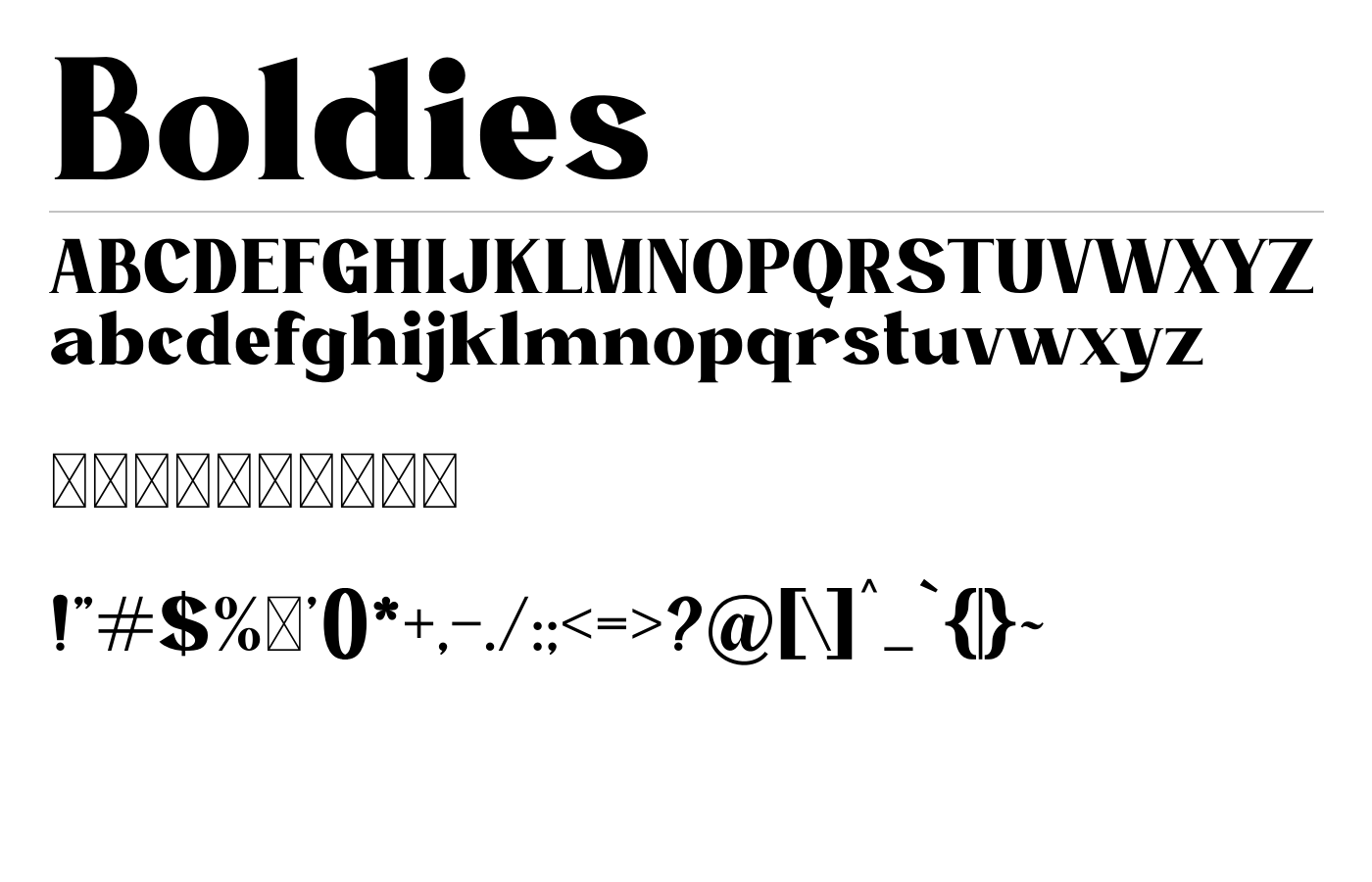
Boldies is a strong serif font with a bold weight and high contrast between thick and thin strokes, giving it a striking and elegant appearance. Its classic serif style with bracketed edges and distinctive letterforms makes it perfect for bold headlines, magazine titles, and branding that seek a sophisticated yet impactful look.
Boldies Font
About Boldies Font